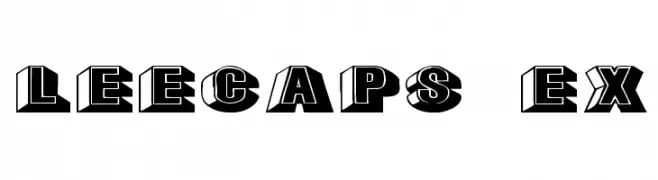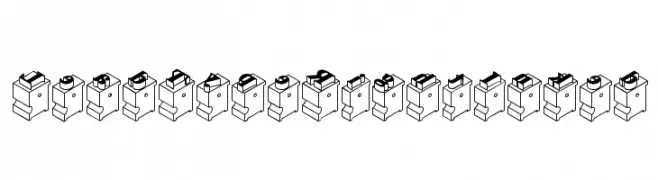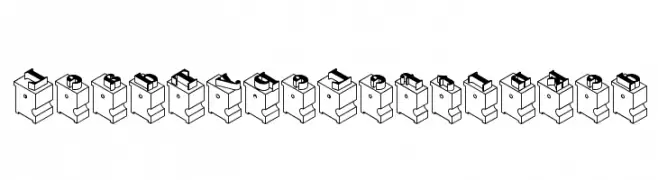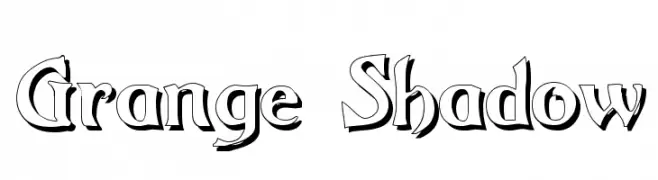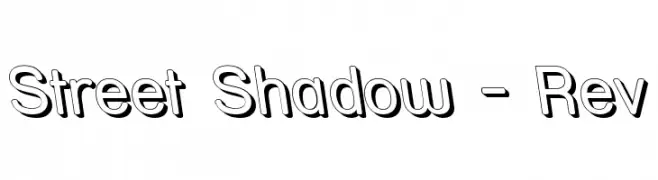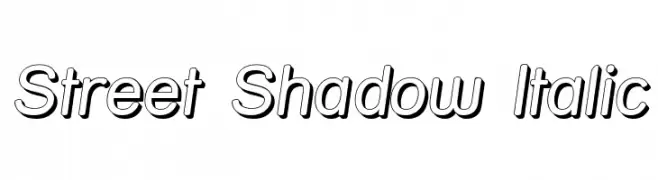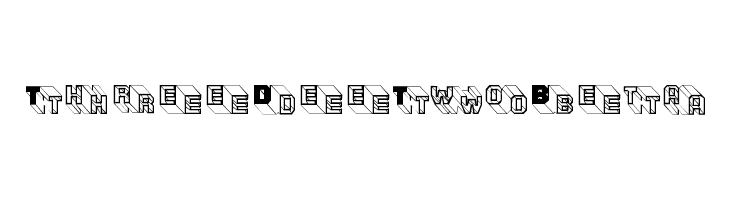
( Fonts by David Rakowski )
A bold, three-dimensional font with a vintage, comic book style.
( Fonts by Daniel Gauthier )
A bold, 3D lead type-inspired font with a vintage yet modern appeal.
( Fonts by Daniel Gauthier )
A bold, three-dimensional font with a vintage lead type aesthetic.
A bold, three-dimensional font with a modern, industrial look.
( Fonts by Dieter Steffmann )
A bold, shadowed font with angular edges and a three-dimensional look.
A bold, three-dimensional font with deep shadows for a dramatic effect.
( Fonts by Dieter Steffmann )
A bold, decorative font with a three-dimensional shadow effect.
( Fonts by Dieter Steffmann )
A playful, rugged font with a hand-drawn, three-dimensional style.
A bold, three-dimensional sans-serif font with a shadow effect for a dynamic look.
Bold italic font with a shadow effect for a dynamic, three-dimensional look.